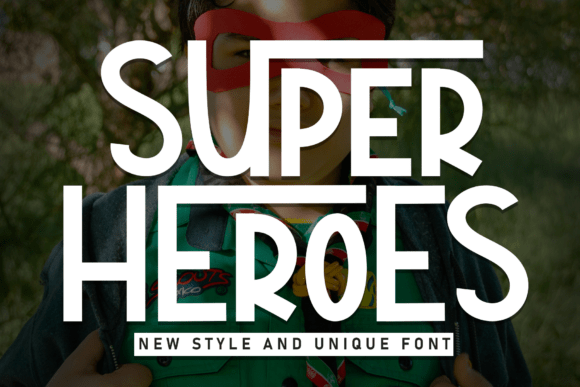
Super Heroes Font: The Ultimate Display Font for Modern Designs
In the world of typography, fonts play a crucial role in conveying the tone and personality of a brand or design. When it comes to creating visually appealing and engaging content, the right font can make all the difference. One such font that has gained popularity among designers and marketers is the Super Heroes Font. In this article, we’ll explore the features, benefits, and uses of Super Heroes Font, and why it’s becoming a go-to choice for modern designs.
What is Super Heroes Font?
Super Heroes Font is a casual and neat display font that exudes a fresh, friendly vibe. Designed with clean lines and a relaxed structure, this font is perfect for a wide range of applications, including packaging, posters, social media graphics, and more. The approachable design of Super Heroes Font adds charm and clarity to projects while maintaining a polished appearance.
Key Features of Super Heroes Font
- Clean Lines: Super Heroes Font features clean lines that give it a crisp and modern look.
- Relaxed Structure: The font’s relaxed structure makes it easy to read and adds a touch of friendliness to any design.
- Fresh and Friendly Vibe: The font’s unique design elements give it a fresh and friendly vibe that’s perfect for brands looking to connect with their audience.
- Polished Appearance: Despite its casual nature, Super Heroes Font maintains a polished appearance that’s suitable for professional designs.
Benefits of Using Super Heroes Font
So, why should you consider using Super Heroes Font for your next design project? Here are some benefits that make it an attractive choice:
- Versatility: Super Heroes Font is versatile and can be used for a wide range of applications, from packaging to social media graphics.
- Readability: The font’s clean lines and relaxed structure make it easy to read, even at smaller sizes.
- Uniqueness: Super Heroes Font has a unique design that sets it apart from other fonts, making it perfect for brands looking to stand out.
- Time-Saving: With Super Heroes Font, you can create professional-looking designs quickly and easily, saving you time and effort.
Uses of Super Heroes Font
Super Heroes Font is a versatile font that can be used for a wide range of applications, including:
- Packaging: Use Super Heroes Font to create eye-catching packaging designs that stand out on store shelves.
- Posters: Create bold and engaging posters with Super Heroes Font that grab attention and convey your message.
- Social Media Graphics: Use Super Heroes Font to create social media graphics that are visually appealing and engaging.
- Branding: Super Heroes Font is perfect for branding projects, including logos, business cards, and letterheads.
Tips for Using Super Heroes Font
Here are some tips for using Super Heroes Font effectively in your designs:
- Pair it with Other Fonts: Super Heroes Font works well with other fonts, so don’t be afraid to experiment with different combinations.
- Use it for Headings: Super Heroes Font is perfect for headings and titles, so use it to add visual interest to your designs.
- Experiment with Colors: Super Heroes Font looks great in a variety of colors, so experiment with different color schemes to find the one that works best for your design.
- Keep it Simple: Super Heroes Font is a simple and clean font, so keep your design simple and avoid clutter.
In conclusion, Super Heroes Font is a versatile and modern display font that’s perfect for a wide range of design applications. With its clean lines, relaxed structure, and fresh, friendly vibe, it’s an attractive choice for brands looking to connect with their audience. Whether you’re designing packaging, posters, social media graphics, or branding materials, Super Heroes Font is a great choice. So why not give it a try and see how it can elevate your designs?
- What is Super Heroes Font? Super Heroes Font is a casual and neat display font that radiates a fresh, friendly vibe.
- What are the key features of Super Heroes Font? Super Heroes Font features clean lines, a relaxed structure, and a fresh, friendly vibe.
- What are the benefits of using Super Heroes Font? The benefits of using Super Heroes Font include versatility, readability, uniqueness, and time-saving.
- What are the uses of Super Heroes Font? Super Heroes Font can be used for packaging, posters, social media graphics, branding, and more.